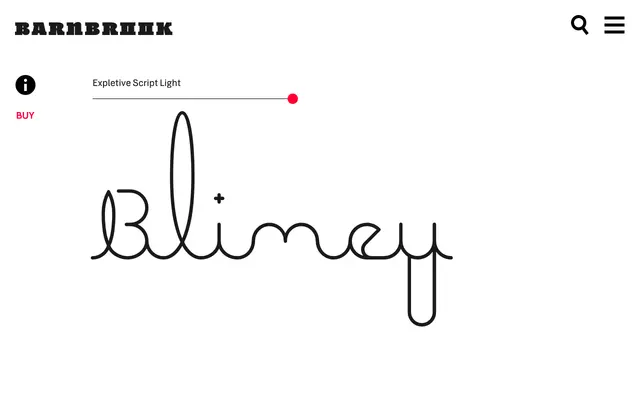
Expletive Script
A modular display face built on circular geometry, with characters that shift above and below the baseline to produce ornamental patterns and expressive headlines.
Characters can be positioned above or below the baseline, making it as useful for generating repeating decorative patterns as for headline-setting. The circular module gives it a simple, consistent geometry that scales from fine detail to large-format display work. Its name references the social power of profanity, framing typography as the visual embodiment of language's more transgressive registers.
Despite the 'Script' in its name, Expletive Script is a modular display face built on circular geometry rather than a calligraphic model; its stacking and pattern-making capabilities place it firmly in the display category.